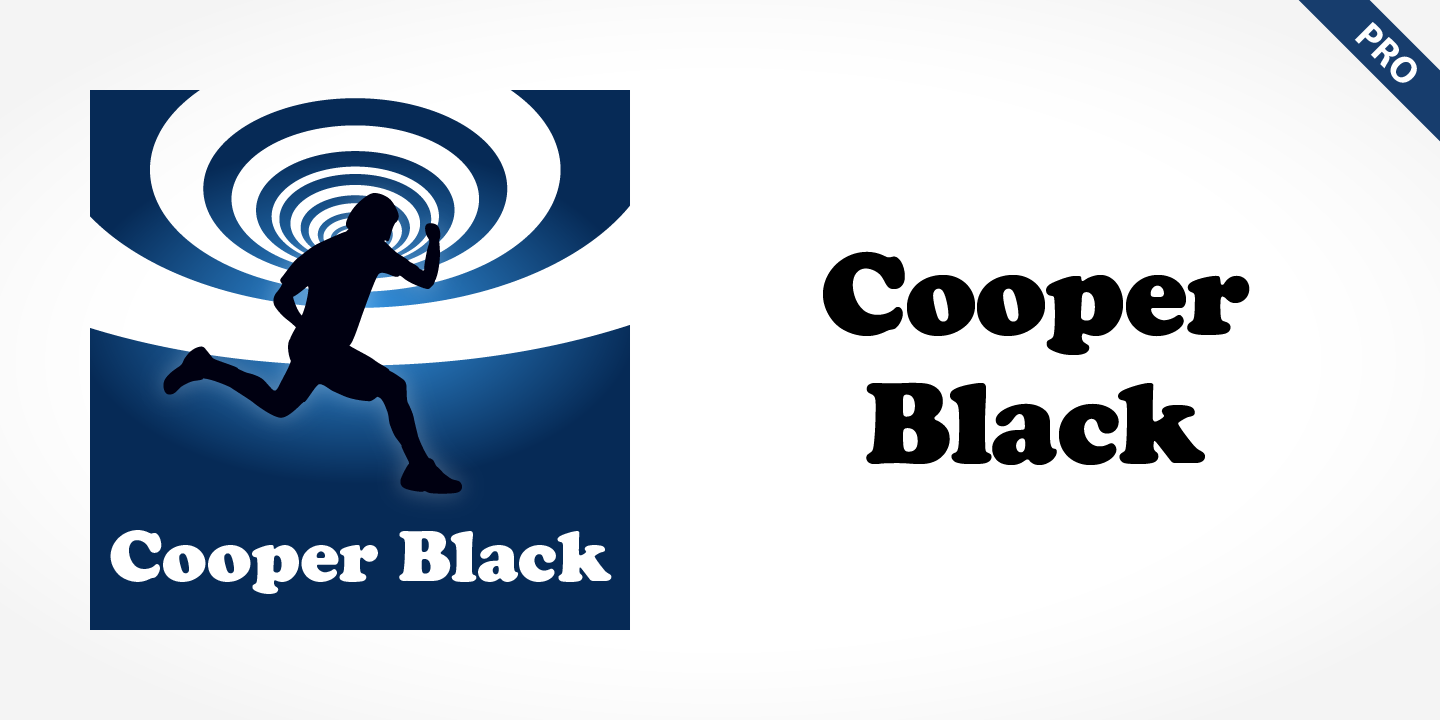
This iconic typeface is a superb choice for projects that demand a bold, friendly, and instantly recognizable aesthetic with a touch of retro charm. Imagine it gracing the covers of vintage-inspired album art, adding a playful yet strong presence to food packaging, or bringing a nostalgic warmth to advertising campaigns. Cooper Black Pro Font is also perfectly suited for designing eye-catching posters, crafting distinctive logos for whimsical brands, or creating memorable headlines for children's books and animated series. Its rounded, heavy forms make it an ideal option for any design seeking to convey fun, comfort, and an inviting personality, such as diner menus, toy branding, or retro-themed event promotions.
What makes Cooper Black Pro Font so exciting? It possesses a unique warmth and undeniable presence that immediately captures attention. The extra bold, rounded serifs and thick strokes give it a distinctive, almost tactile quality that feels both substantial and approachable. This font doesn’t just convey words; it embodies a feeling of joy and robust friendliness, making it incredibly effective for marketing and branding where a strong, positive impression is key. It’s engineered to stand out in a visually busy world, ensuring your message is not only seen but also remembered for its cheerful and confident demeanor. The inherent charm and readability of its letterforms make it particularly effective for brands that champion nostalgia, comfort, and a universally appealing, retro-modern aesthetic.
The Cooper Black Pro Font family typically offers a range of weights and styles to enhance its versatility, building upon the classic foundation. While the original Cooper Black is known for its singular heavy weight, a "Pro" version often implies additional refinements or complementary styles. You might find options such as the classic Black weight, perhaps an Outline version, or even subtly varied widths that maintain the font's core characteristics while offering nuanced visual impacts. These variations enable designers to create dynamic compositions, using the iconic heavy weight for primary impact and potentially lighter or outline versions for secondary elements. The availability of these options ensures that Cooper Black Pro Font can be seamlessly integrated into diverse design applications, from impactful branding and advertising to playful editorial layouts, all while maintaining its unique and beloved charm.
Whether you're creating a bold brand identity for a new snack, designing a retro-inspired event poster, or simply need a typeface that speaks with undeniable personality and warmth, Cooper Black Pro Font Free Download is an exceptional choice. Its distinctive charm and timeless appeal will ensure your designs always make a memorable and inviting statement.